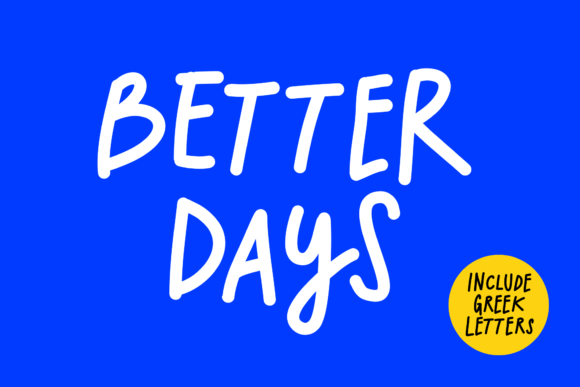
Journey into the realm of Better Days, an exceptional script font family that embodies the essence of casual elegance. Crafted by the talented georgebourle, this chunky handmade marker font is a masterpiece designed to add a unique and personal flair to your creative projects. Whether you're a seasoned designer or just starting, Better Days will elevate your designs with its authentic and charming touch.
Step into a world of endless possibilities with Better Days, the perfect font for crafting projects that reflect your individuality. Unleash your creativity and let the smooth, flowing lines of this script font guide you to new heights of design. With Better Days, you'll create stunning designs that capture the attention of your audience and leave a lasting impression.
With Better Days, you're not just downloading a font; you're embracing a journey of artistic expression. Let the playful curves and organic strokes of this remarkable font transport you to a realm of imagination and innovation. Experience the joy of crafting designs that exude a sense of warmth and personality, designs that speak to the heart and leave a lasting impact.
Whether you're creating personalized cards, invitations, posters, or any other project that calls for a touch of handwritten charm, Better Days is the ultimate choice. Its versatile nature allows it to blend seamlessly with various design styles, adding a touch of elegance and sophistication to your creations.
With Better Days, you'll embark on a creative adventure that knows no bounds. Its user-friendly nature makes it accessible to designers of all levels, inviting you to explore the depths of your imagination and bring your artistic visions to life. Embrace the beauty of Better Days and let your creativity soar.